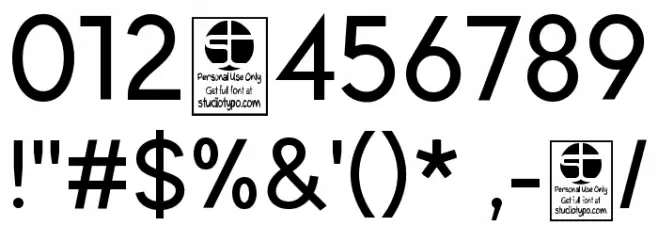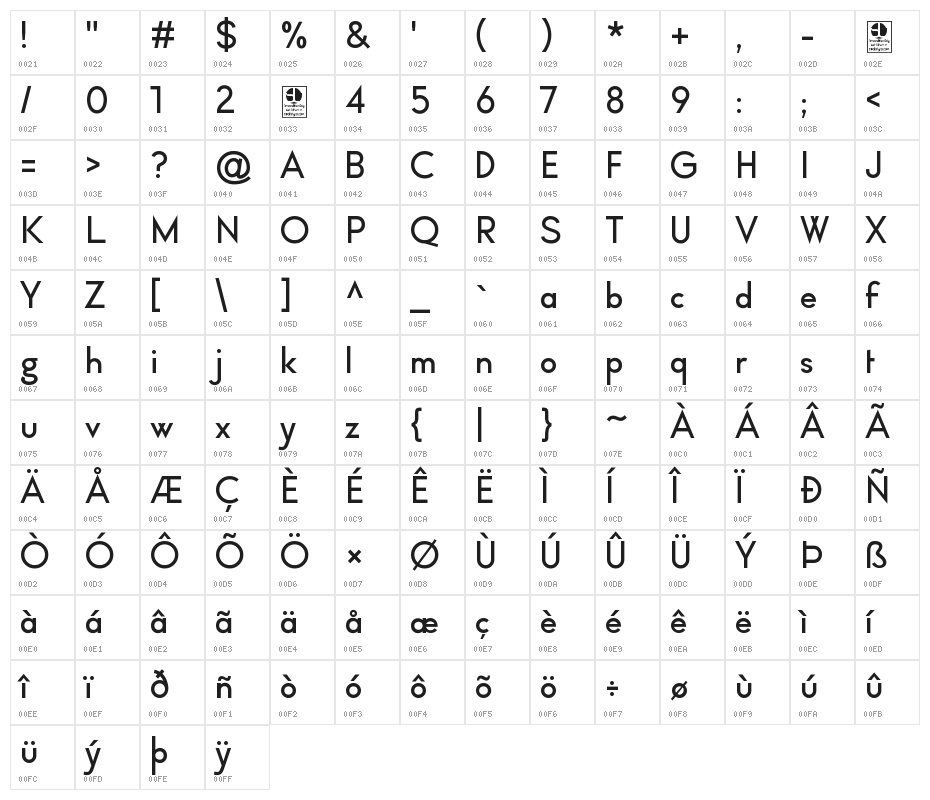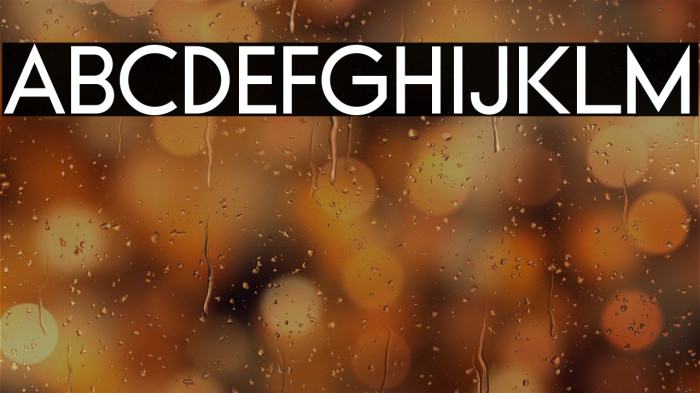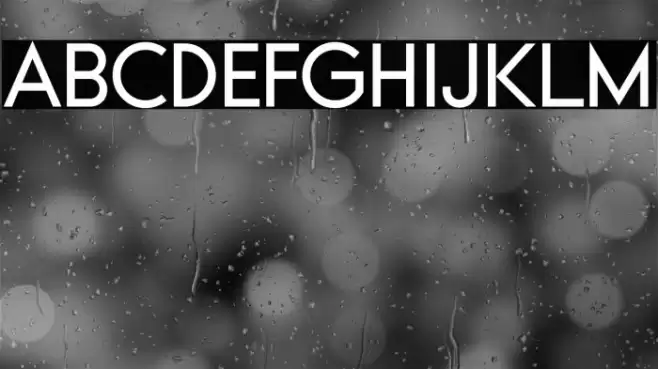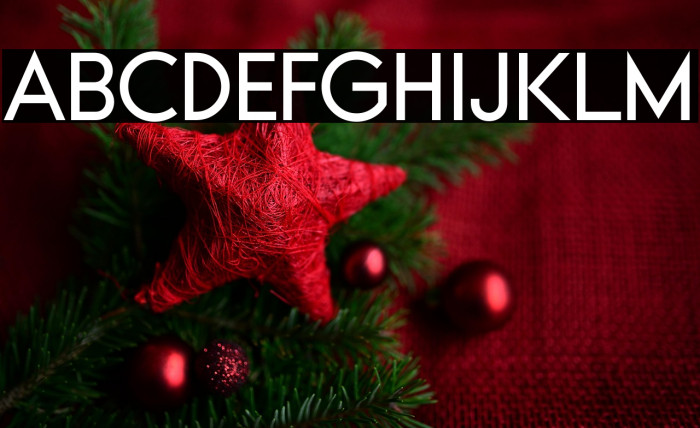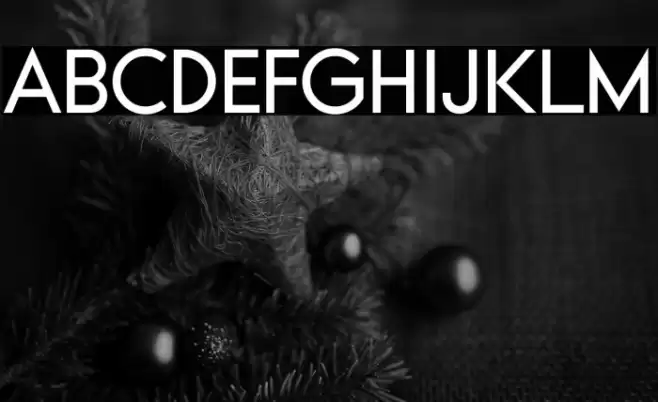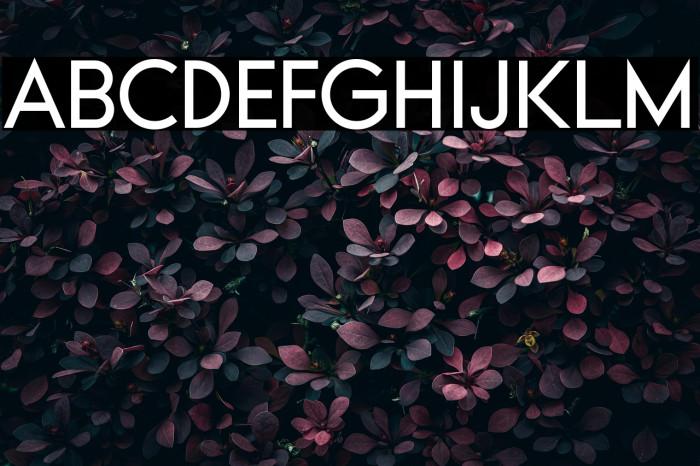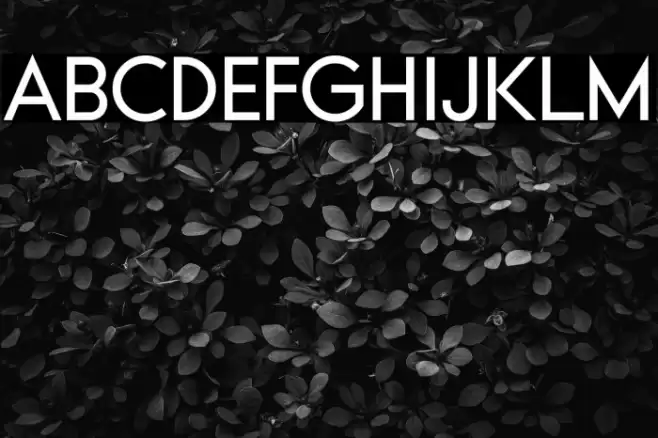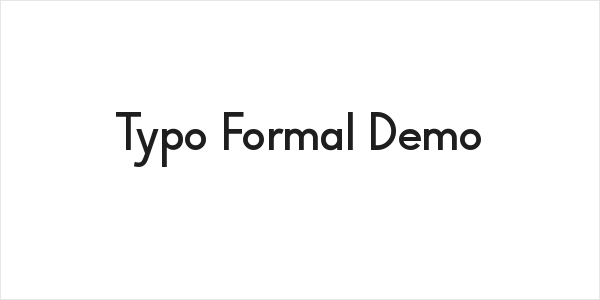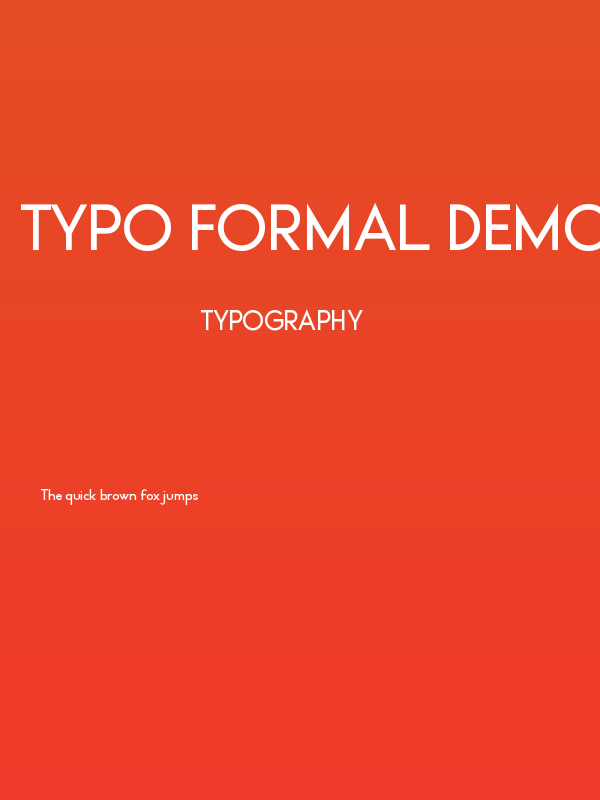
Typo Formal Demo Font
Typo Formal Demo Description
This font features a clean and modern sans-serif style with a geometric structure. The uppercase letters are bold and evenly spaced, providing a strong presence, while the lowercase letters maintain a consistent height and width, ensuring readability. The numerals are straightforward and align well with the overall design, making them suitable for various applications. Special characters are included, maintaining the same geometric and modern aesthetic. The font's simplicity and clarity make it versatile for both digital and print media.
| Proposed Projects | Ideal for branding, advertising, web design, and editorial projects where clarity and modernity are essential. |